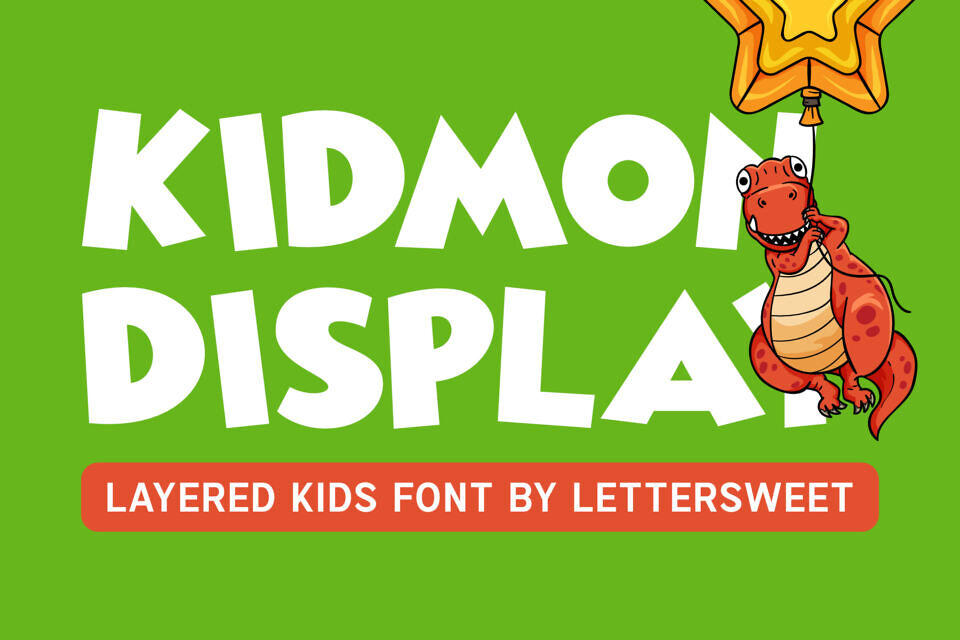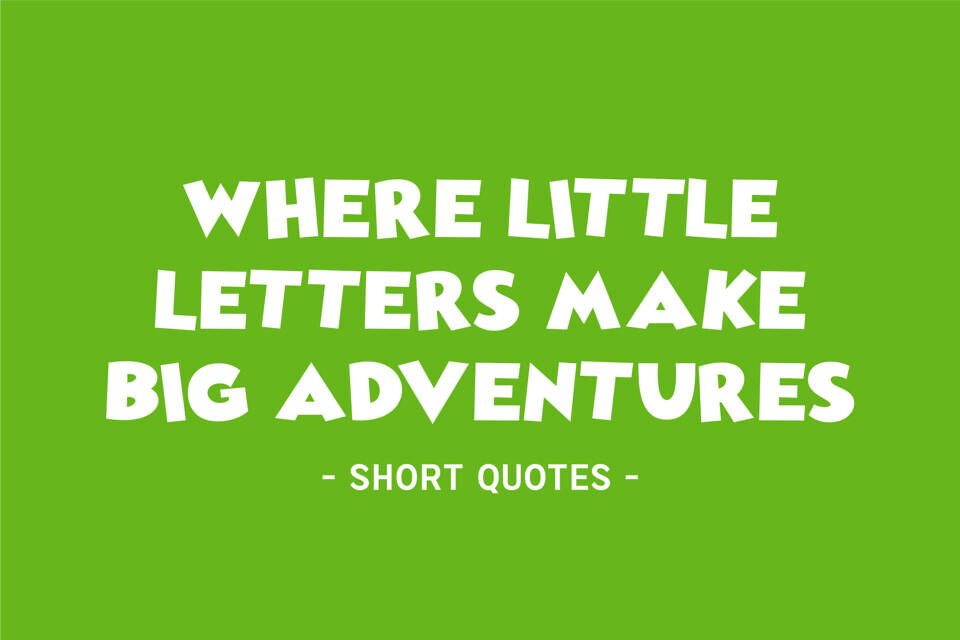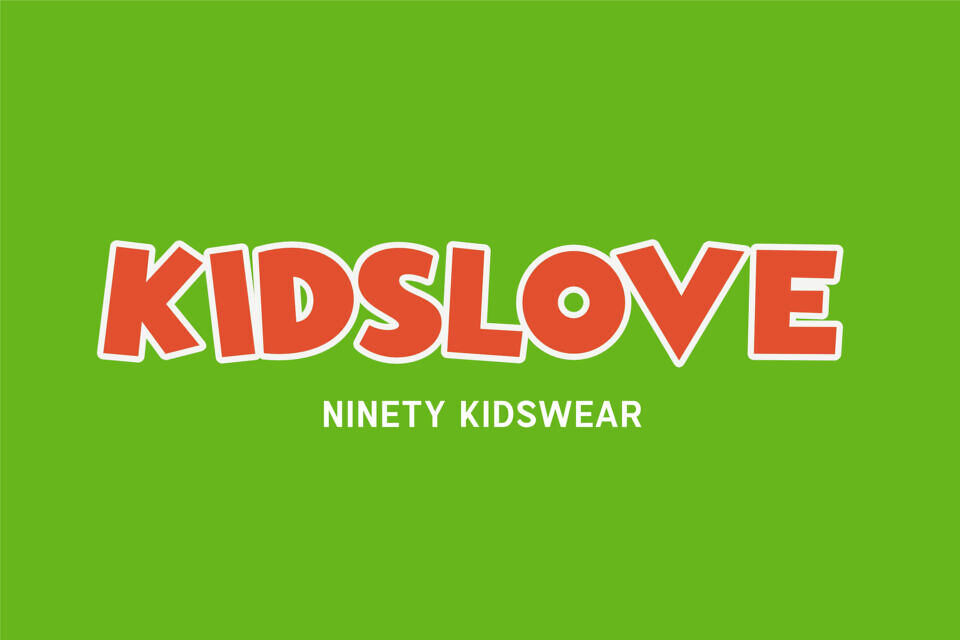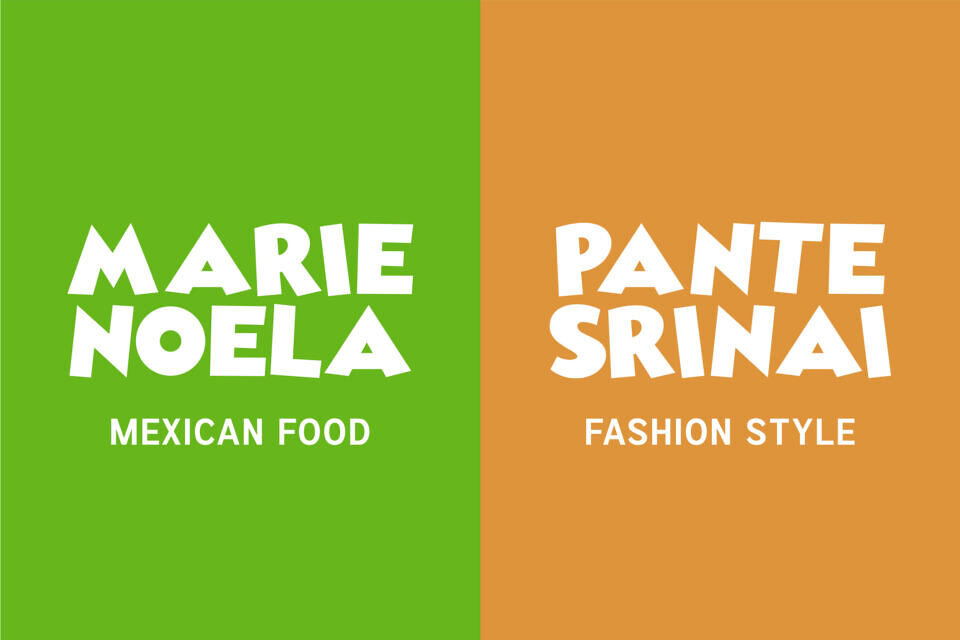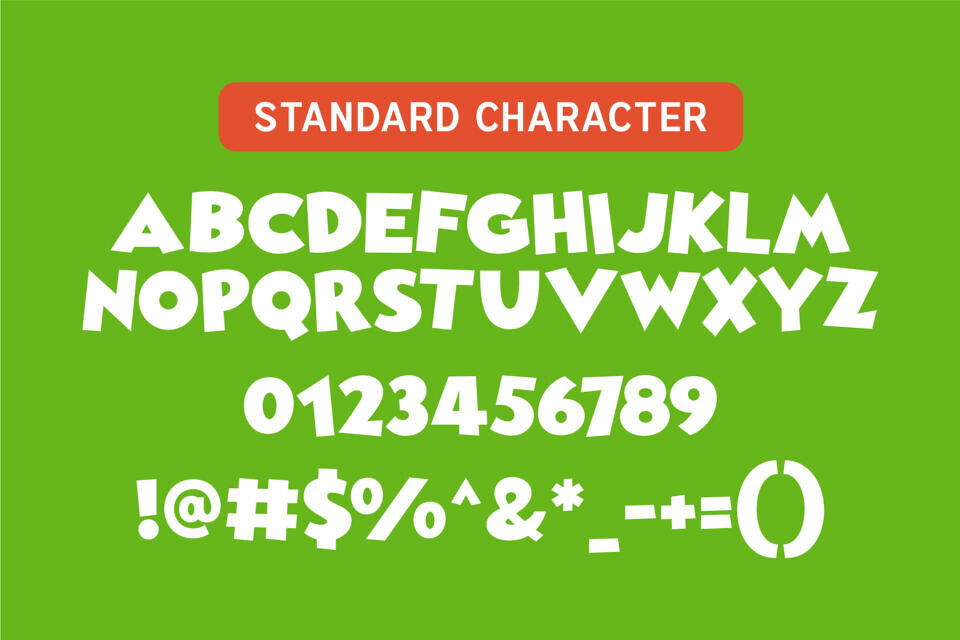
Kidmon is a playful kids font designed with bold, fun, and full-of-character letterforms. Its chunky, rounded shapes and slightly irregular structure create a cheerful and friendly feel that instantly captures attention. This lively style makes Kidmon perfect for designs that aim to look joyful, warm, and energetic.
Kidmon is ideal for a wide range of creative projects such as children’s books, kids branding, toy packaging, cartoon titles, classroom materials, birthday invitations, and playful posters. With its cheerful and expressive style, Kidmon helps bring a fun and lively atmosphere to any design.